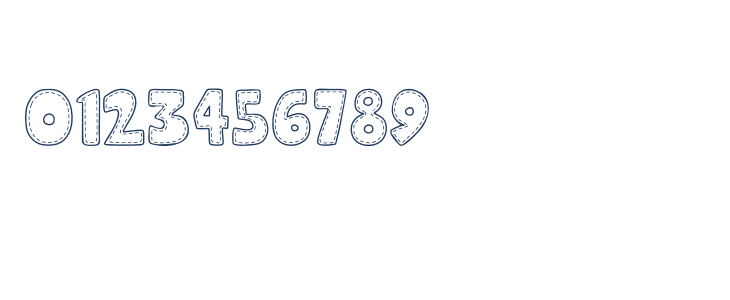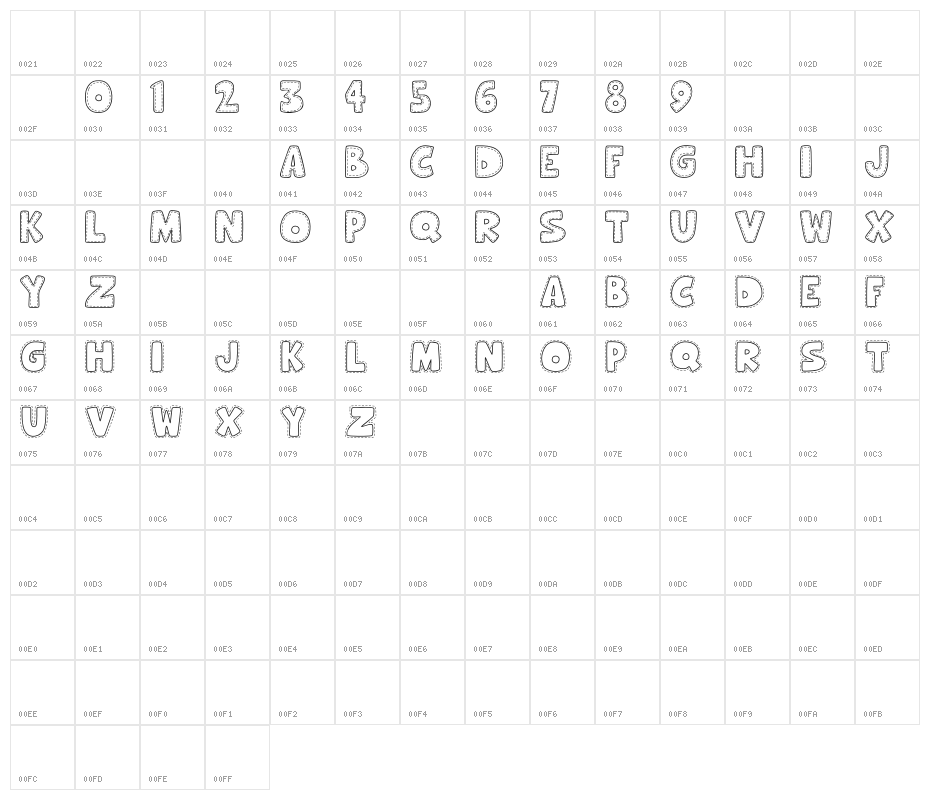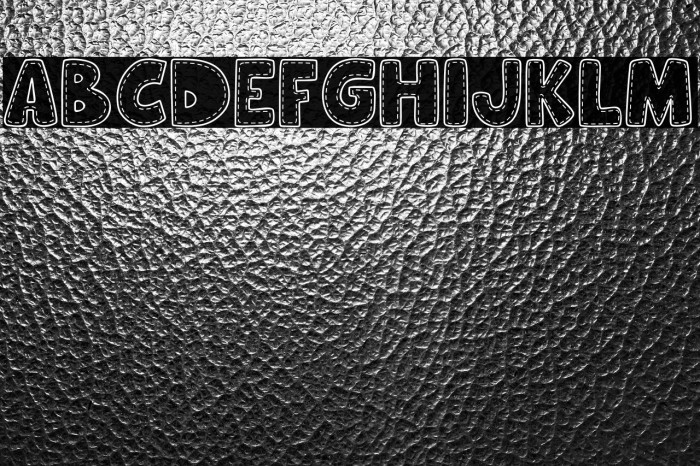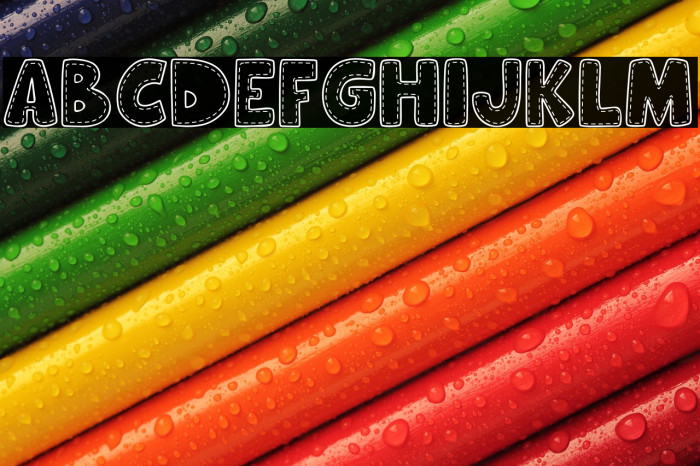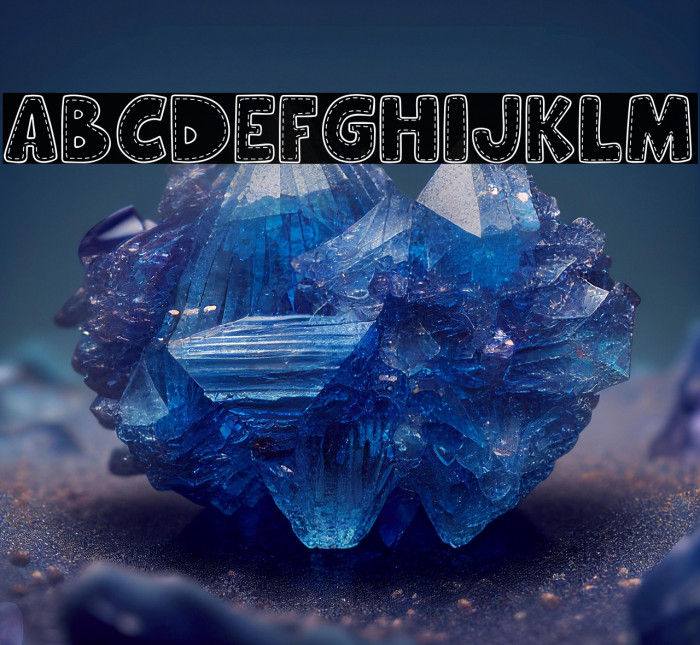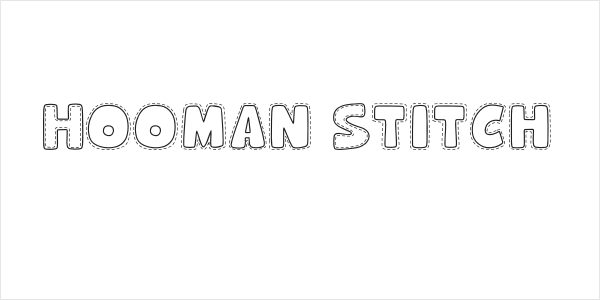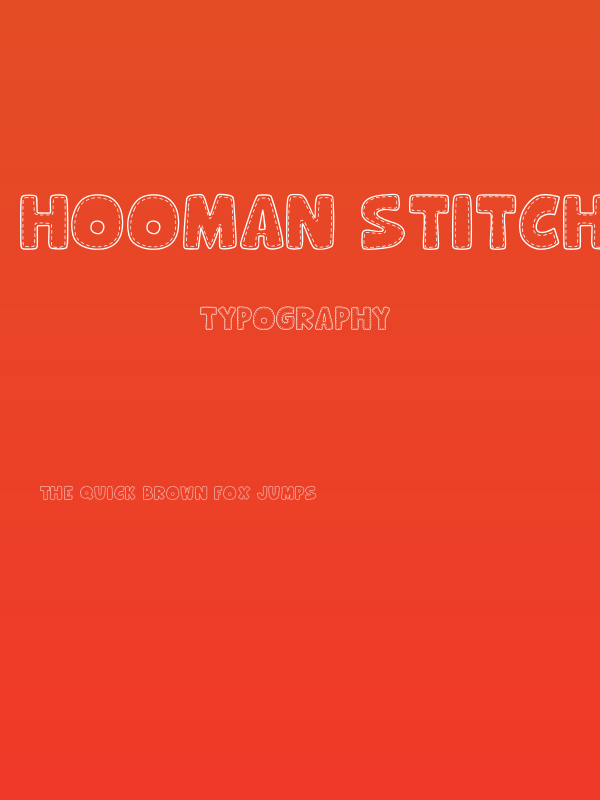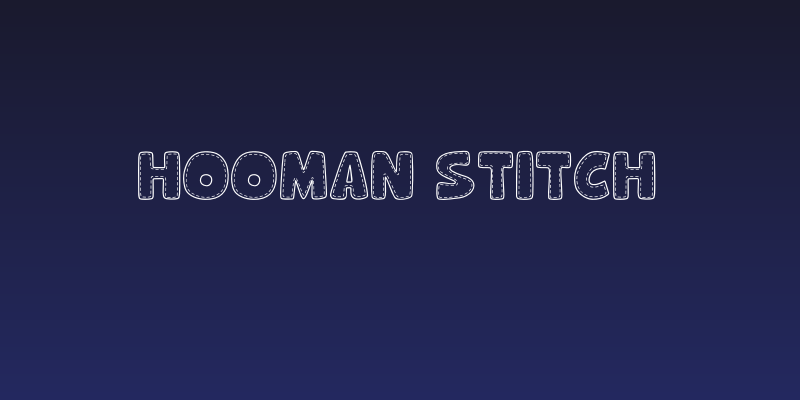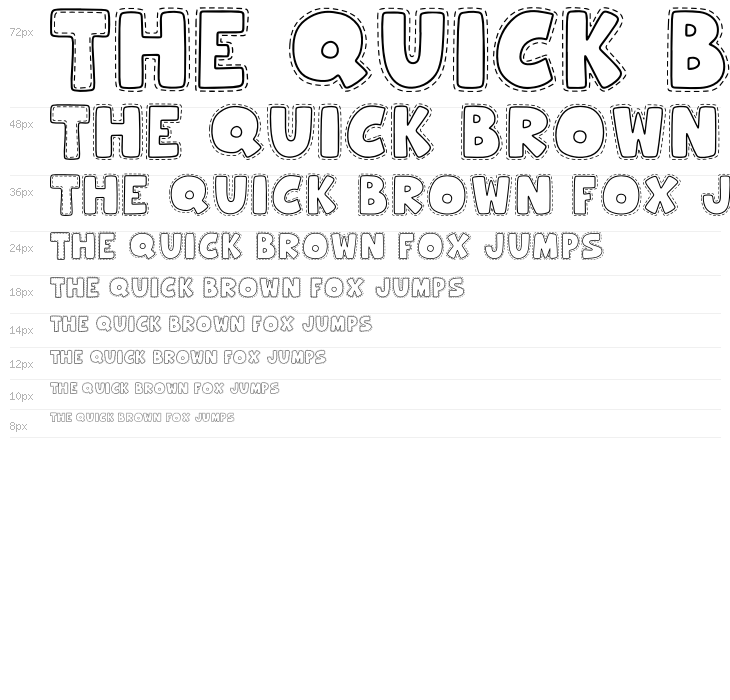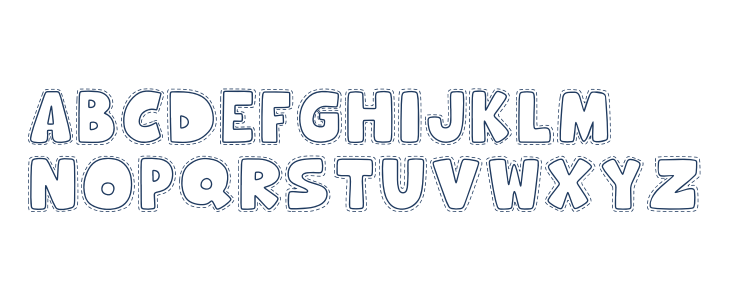
Hooman Stitch Font
Hooman Stitch Description
This playful and whimsical font features bold, rounded characters with a stitched outline effect, giving it a handmade, crafty appearance. The letters are evenly spaced, with a consistent width and a slight emphasis on rounded edges, creating a friendly and approachable feel. The decorative stitching detail adds a unique touch, making it stand out for creative projects. The font maintains a uniform stroke weight, ensuring readability while adding a touch of fun and creativity. Its distinctive style makes it ideal for projects that require a personal, handmade touch.
| Proposed Projects | Ideal for children's books, craft projects, DIY-themed designs, and playful branding. |